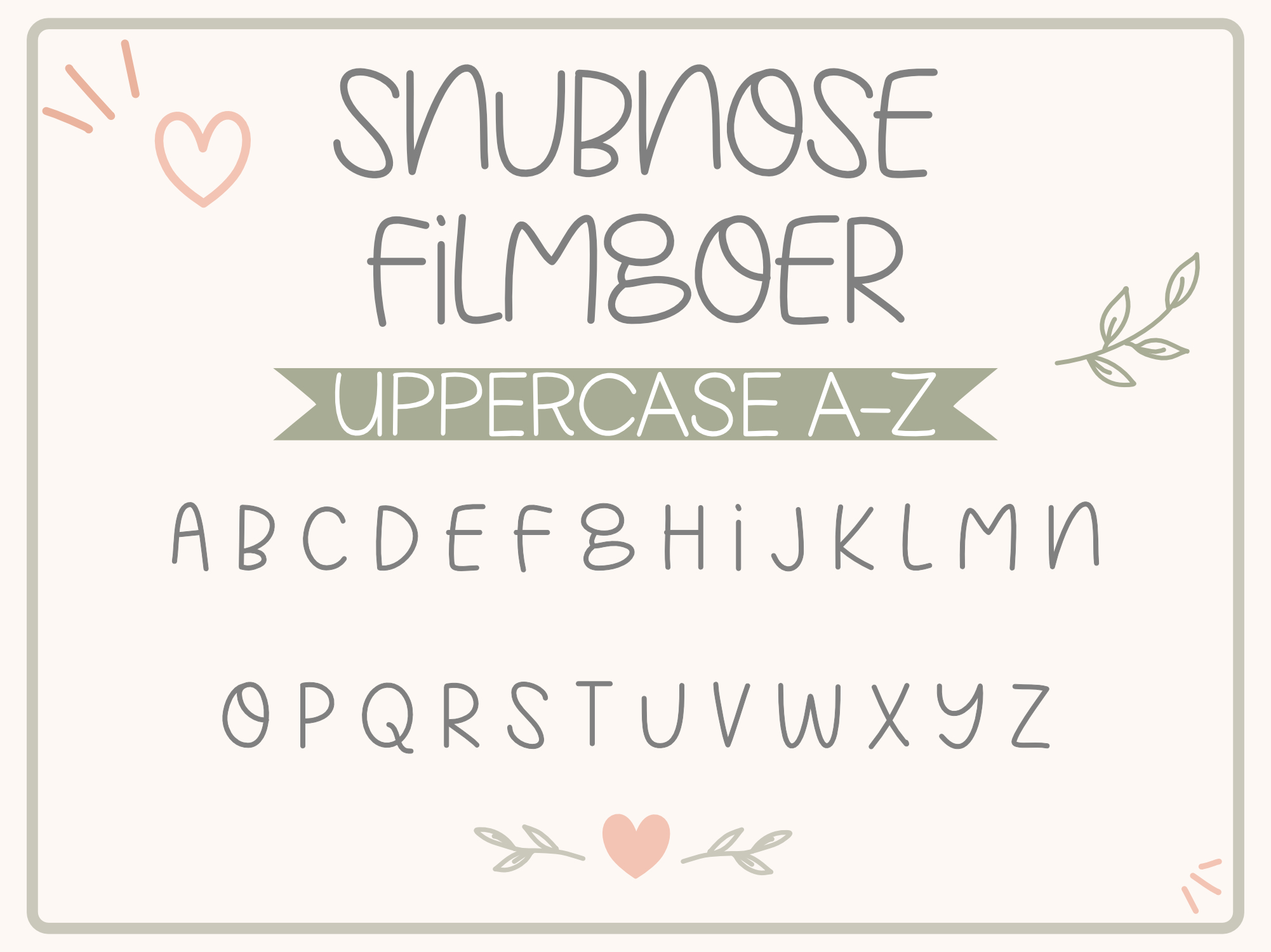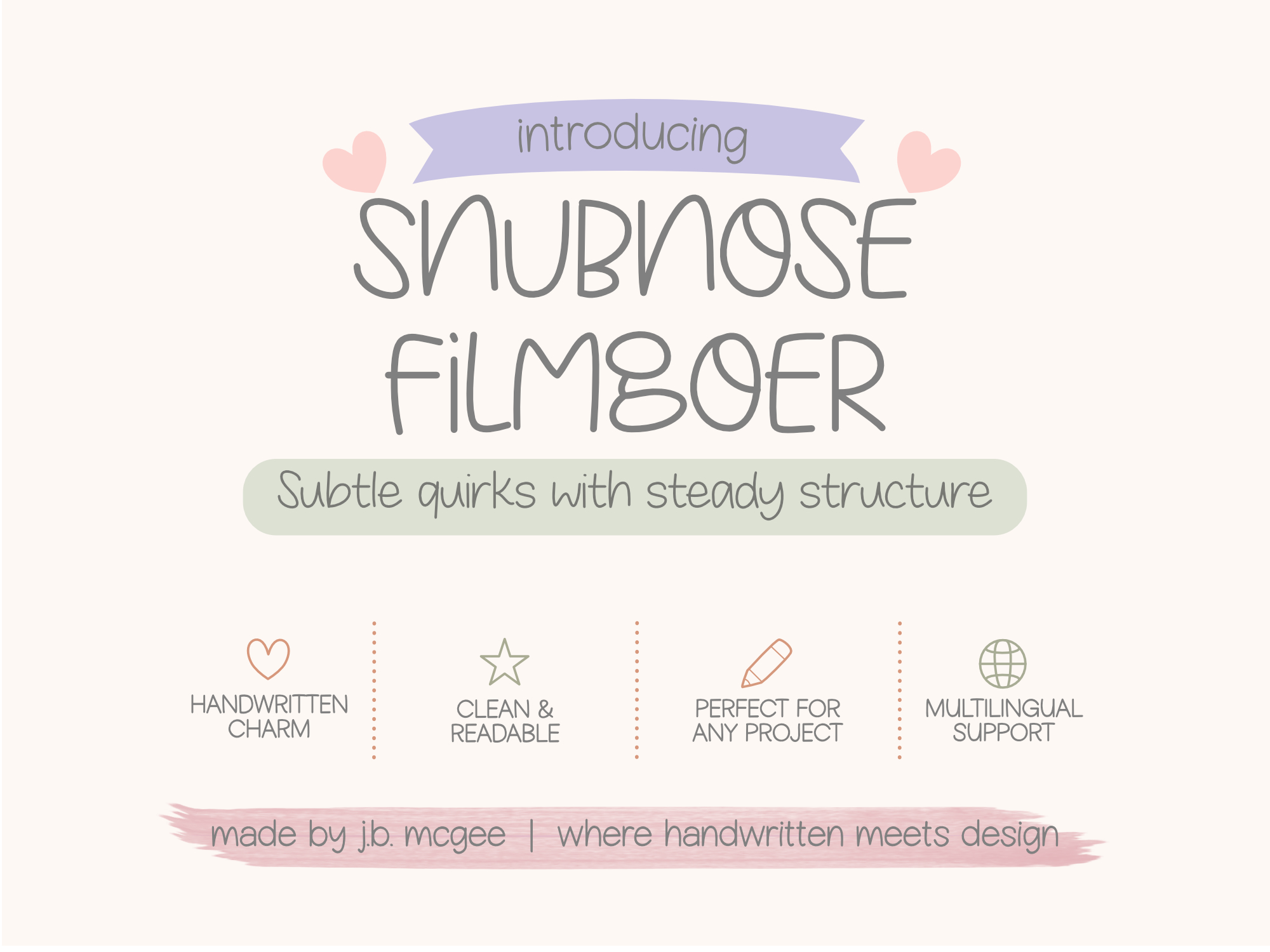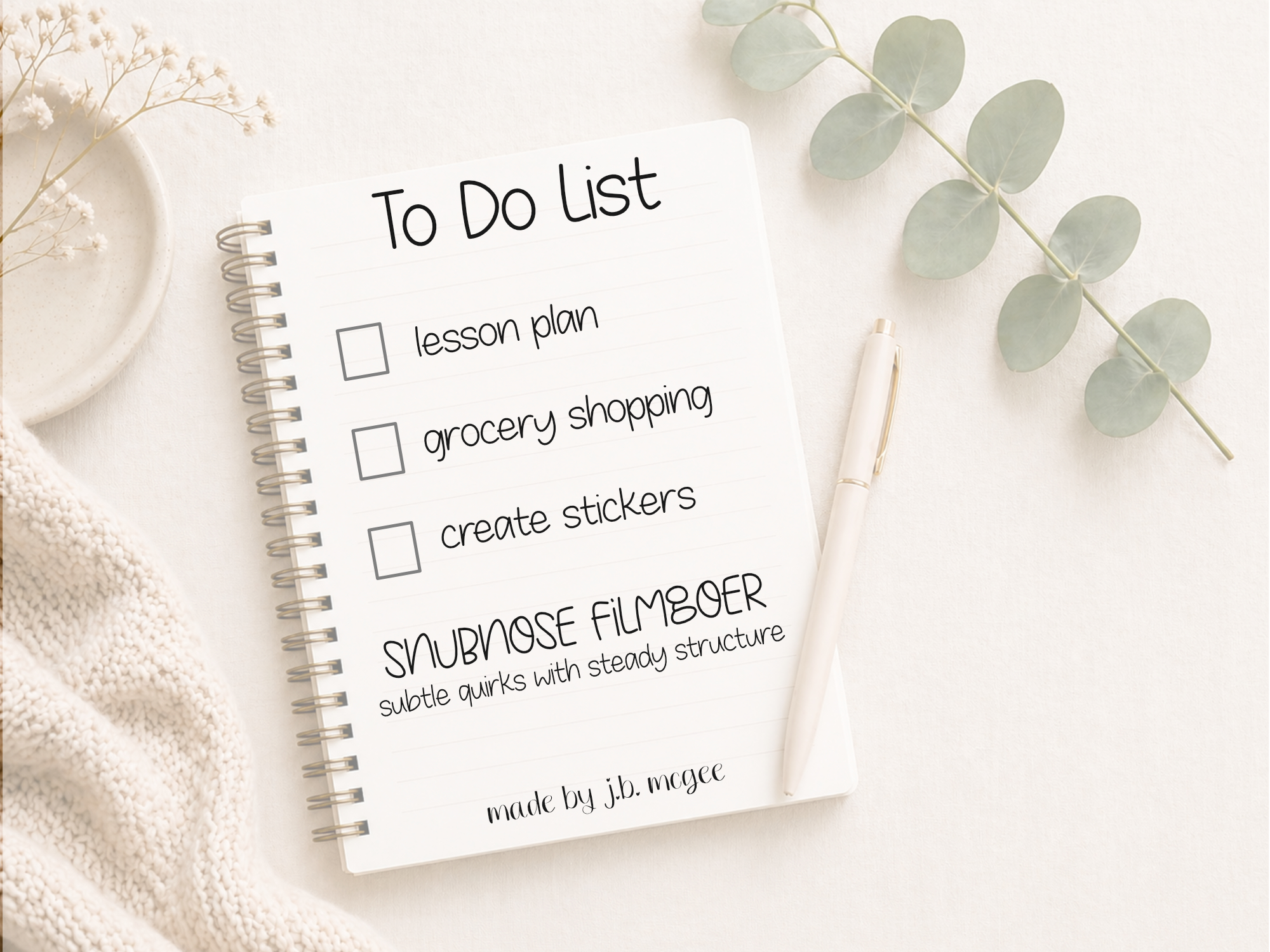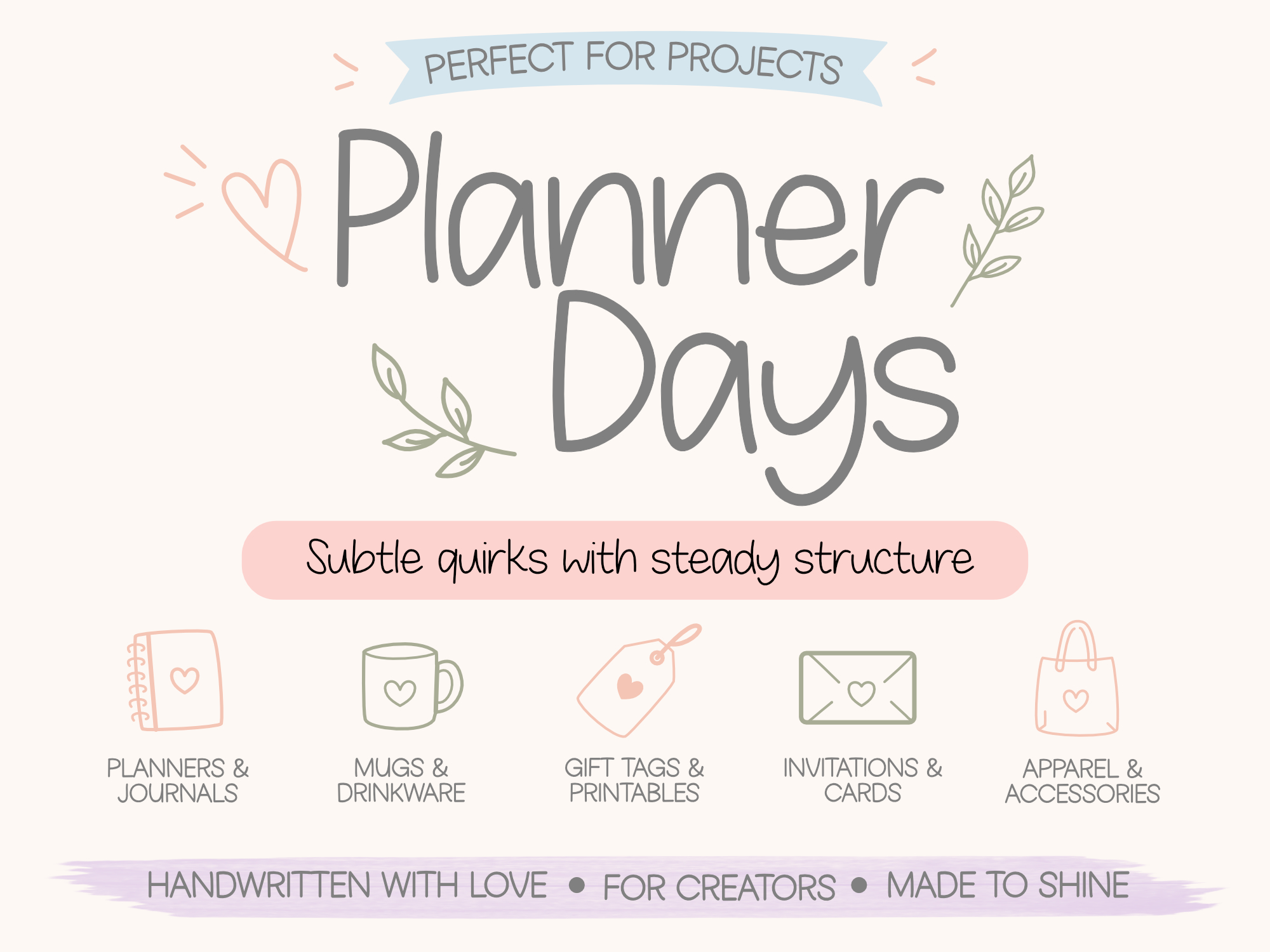
Snubnose Filmgoer Font
Subtle quirks with steady structure
Snubnose Filmgoer is a handwritten monoline font with subtle quirks and distinctive glyph details that give it personality while still staying easy to read. Its balanced spacing and clean structure make it a versatile choice for both print and digital projects.
This font was designed to feel playful and slightly unconventional without becoming messy or difficult to use. Unique character shapes help it stand out while maintaining a steady, readable flow across everyday designs.
What makes Snubnose Filmgoer stand out:
• Slightly quirky letterforms with unique details
• Clean monoline strokes for consistency
• Distinctive glyphs that add personality
• Balanced spacing for everyday readability
• Easy to read at small and large sizes
• Uppercase and lowercase letters
• Numbers and punctuation
• Symbols and special characters
• Standard multilingual support (as shown in previews)